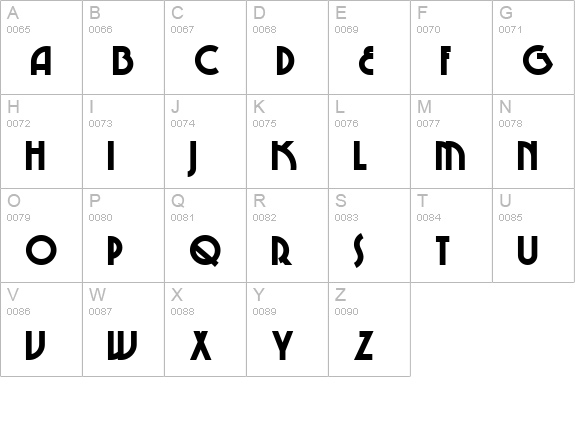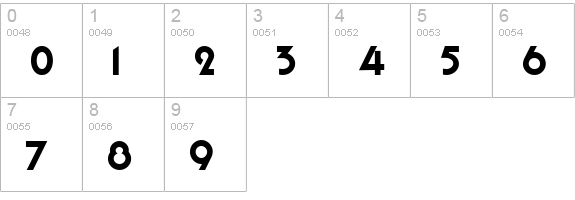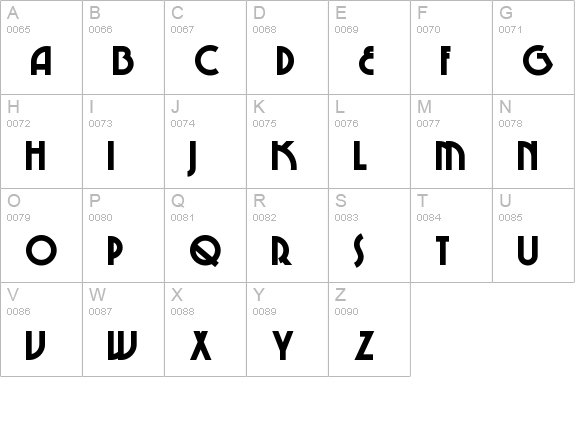
Chi-Town NF font is a bold and dynamic typeface that captures the spirit of Chicago's vibrant urban landscape. With its strong, angular lines and modern aesthetic, this font is perfect for conveying a sense of energy and strength in your designs. Whether you're creating posters, logos, or branding materials, Chi-Town NF font will make a powerful statement. Best of all, Chi-Town NF font is completely free to download at FontsMarket.com. This means you can access this striking typeface without any cost, making it a valuable addition to your font collection. Don't miss out on the opportunity to enhance your projects with the bold and impactful Chi-Town NF font today!